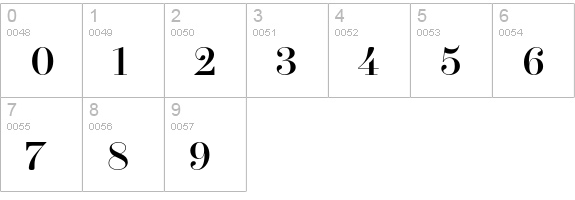
NewParis Headline Medium Font Details
NewParis Headline Medium is a balanced, medium-weight variant in the NewParis typeface family \xE2\x80\x94 well suited to sub-headlines, navigation, and balanced editorial work.
Introducing NewParis Headline Medium font, a captivating typeface that strikes the perfect balance between modern elegance and timeless sophistication. With its clean lines and distinctive letterforms, this versatile font is ideal for a wide range of design projects, from editorial layouts to branding and packaging. What sets NewParis Headline Medium apart is its effortless ability to convey a sense of refined style and sophistication. The medium weight of the font gives it a strong presence on the page, making it perfect for headlines, subheadings, and other prominent text elements. And the best part? NewParis Headline Medium is available for free download at FontsMarket.com. Now you can elevate your designs with this stunning font without breaking the bank. Don't miss out on this opportunity to add a touch of elegance to your projects with NewParis Headline Medium font. Download it today and see the difference it can make!